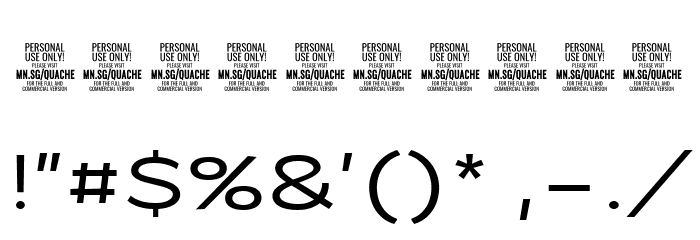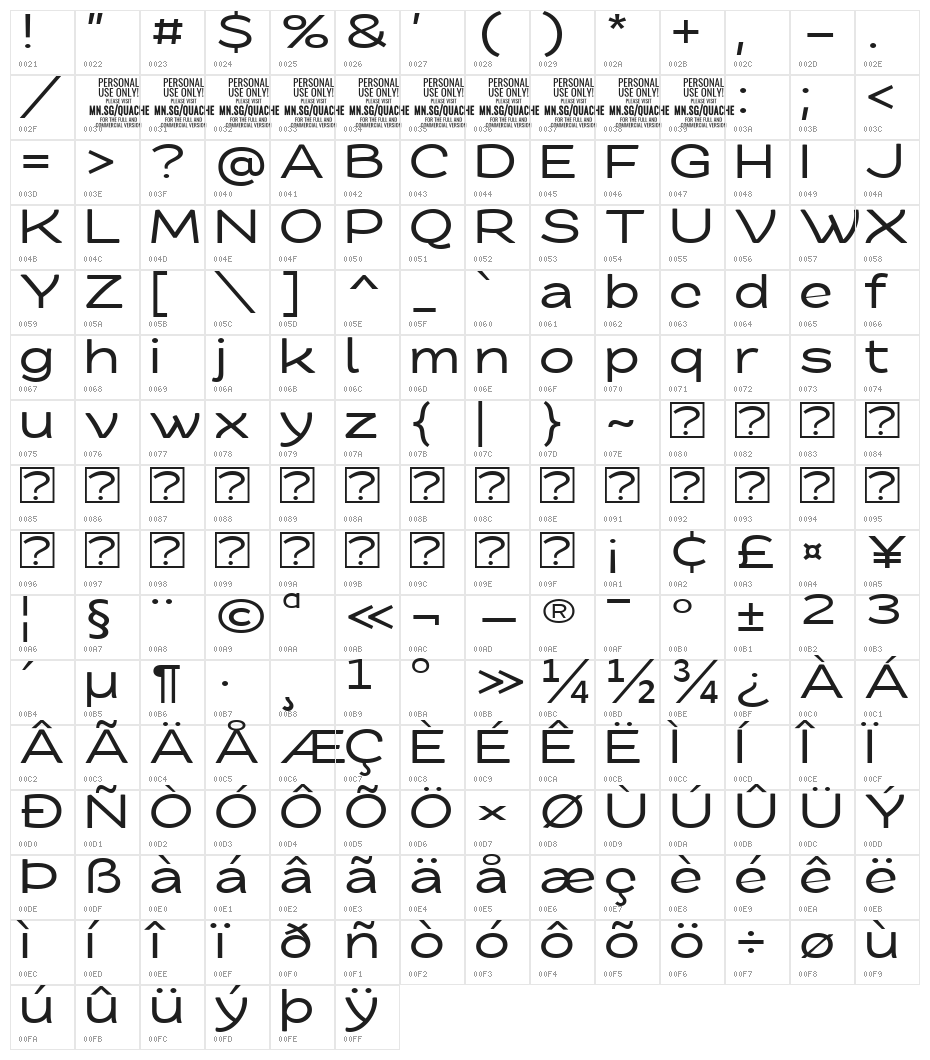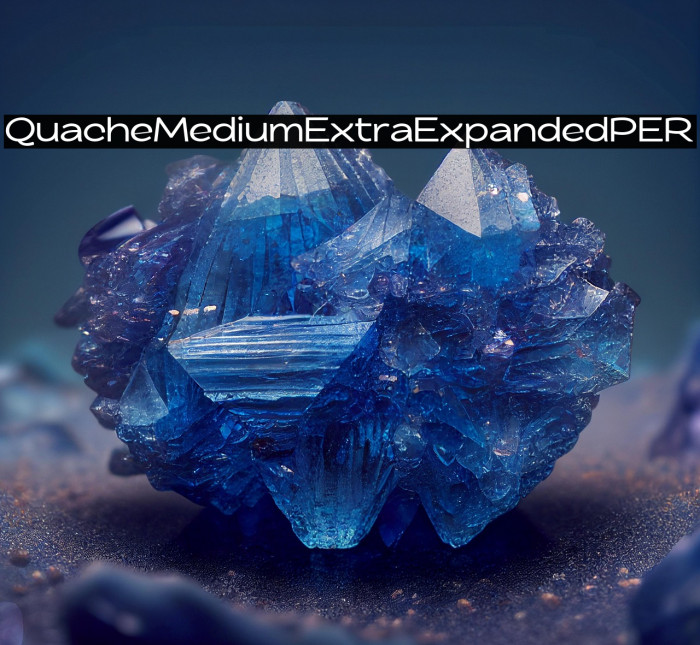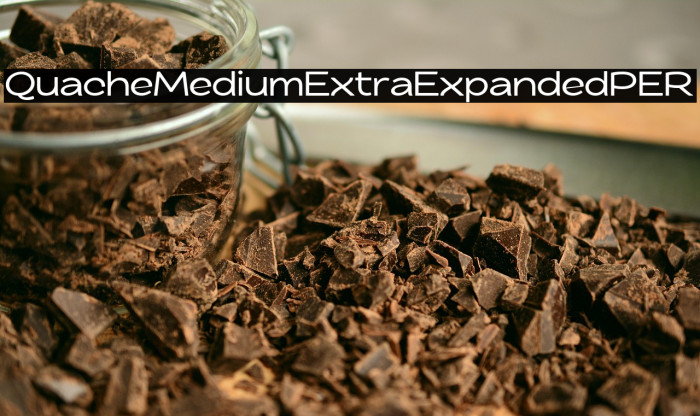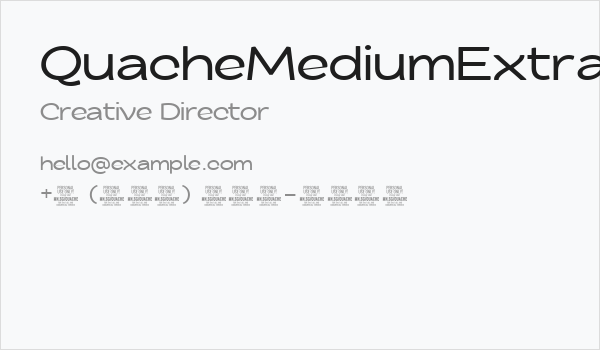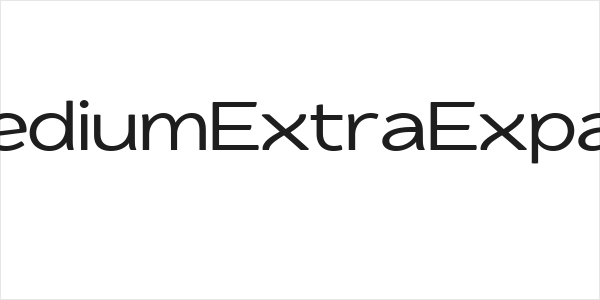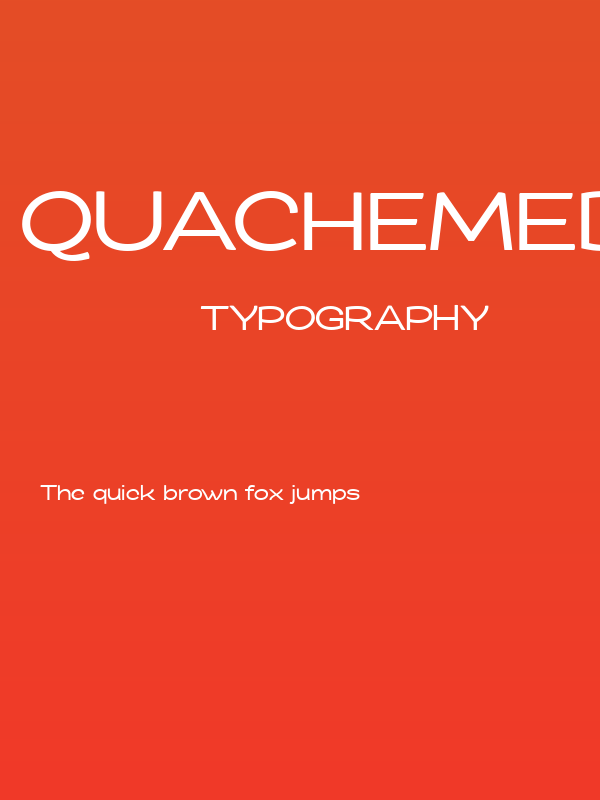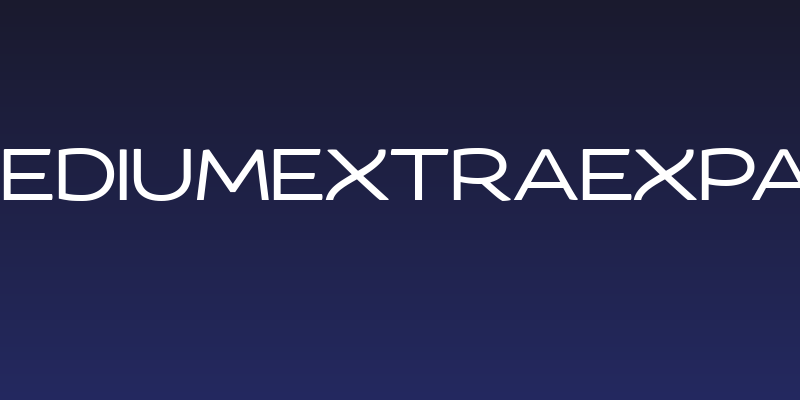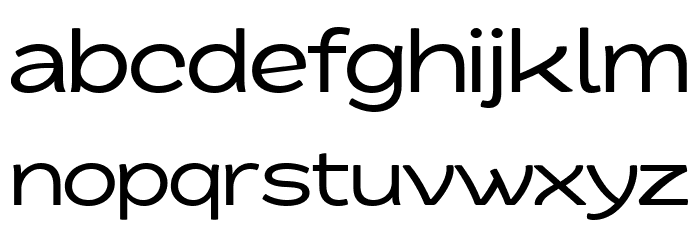
QuacheMediumExtraExpandedPER Font
QuacheMediumExtraExpandedPER Description
This font features a modern and sleek design with clean lines and a geometric structure. The characters are uniform in width, giving it an extra expanded appearance. The uppercase letters are bold and assertive, while the lowercase letters maintain a consistent style that complements the overall look. The numerals and special characters are designed to match the font's contemporary aesthetic, making it versatile for various applications. The font's clarity and readability make it suitable for both digital and print media.
| Proposed Projects | Ideal for branding, advertising, headlines, and digital media projects that require a modern and bold aesthetic. |